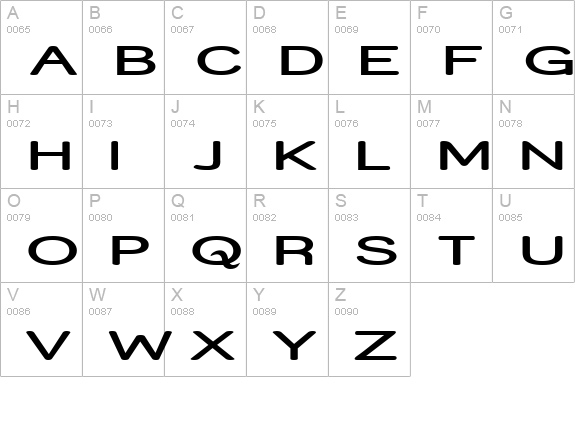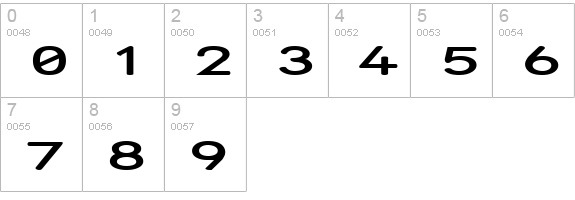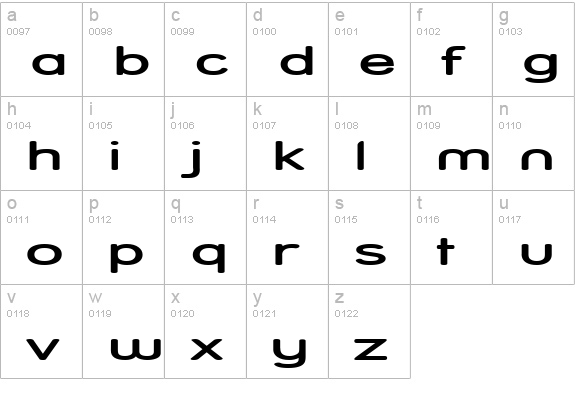
Street - Expanded Semi is a distinctive, extended-width variant in the Street typeface family \xE2\x80\x94 well suited to design and typography projects.
Street - Expanded Semi font is a modern and versatile typeface that combines sleek lines with a bold presence. Its expanded semi design adds a unique flair to any project, making it perfect for headlines, logos, and branding materials. The clean and easy-to-read characteristics of this font make it suitable for both digital and print applications. What's even better is that Street - Expanded Semi font is available for free download at FontsMarket.com. This means you can effortlessly enhance your designs without breaking the bank. Don't miss out on the opportunity to add this stylish and eye-catching font to your collection today!